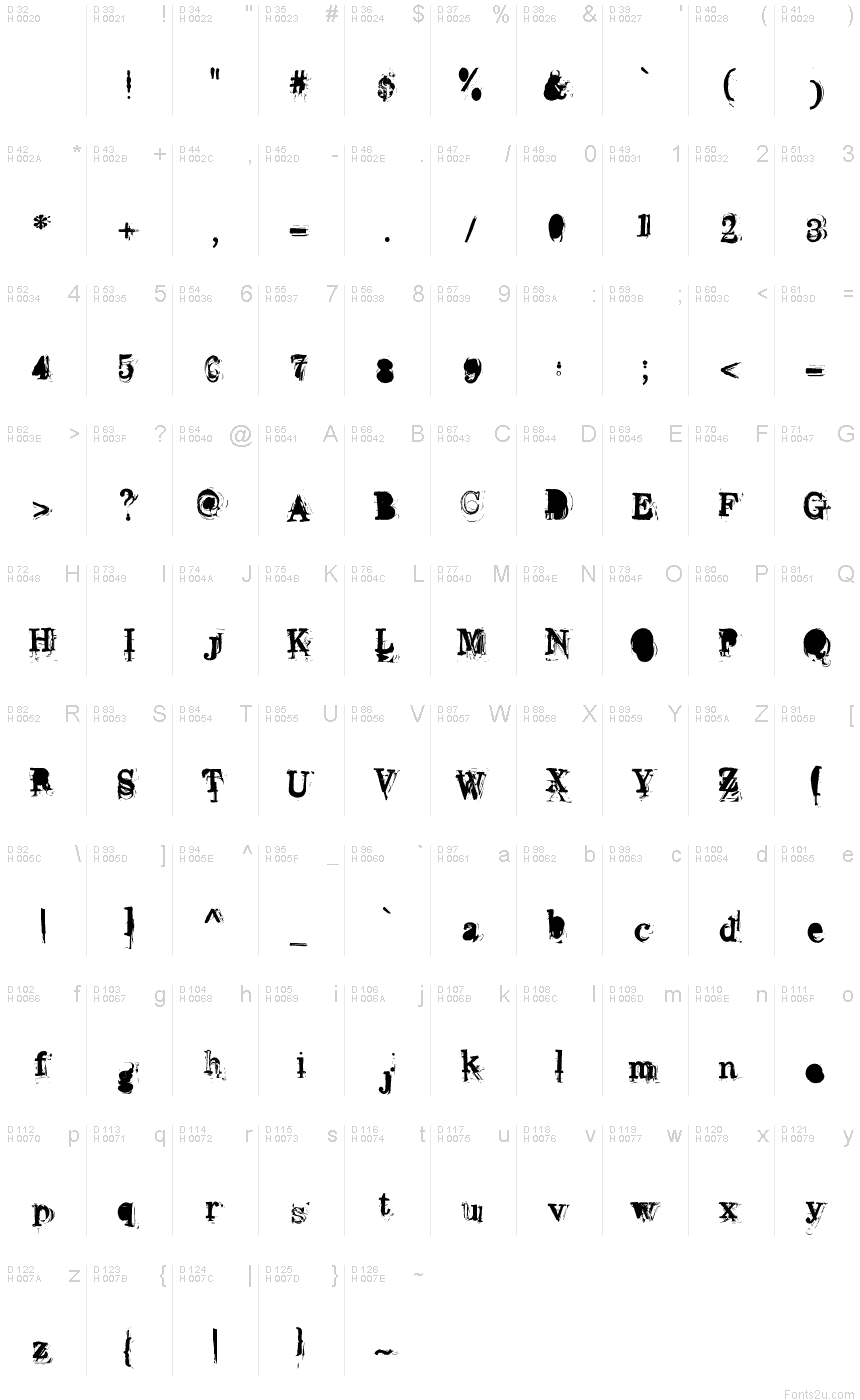
Overwork
Overwork font by Ryoichi Tsunekawa Bagel&Co. is a free distorted display font with warped shapes, rough cut edges, and a scratched, uneven finish. The letters feel stretched and disrupted rather than neatly drawn, which gives the design a raw, damaged texture that carries across the whole set.
Overwork works well for poster titles, album covers, event flyers, zines, and edgy logo marks where a fractured, handmade look fits the subject. This free font also suits horror graphics, underground branding, and experimental packaging because its irregular rhythm and distressed edges create a strong visual break without relying on extra decoration.